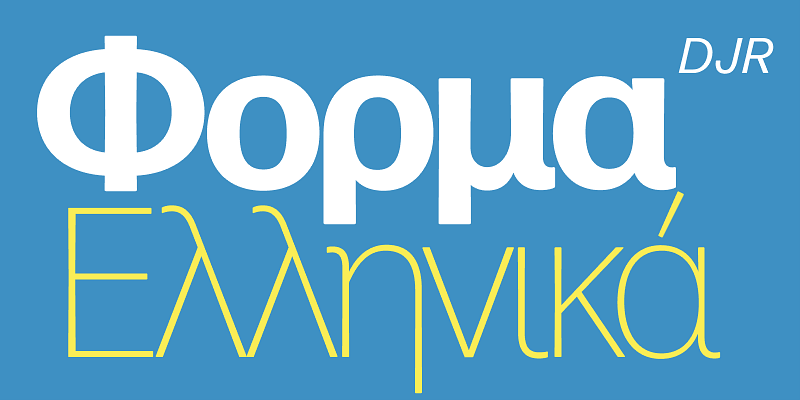
Forma DJR Greek Font Free Download is a modern sans-serif typeface that brings a clean, structured look to multilingual design. Crafted with the same elegance and clarity as its Latin counterpart, this Greek-supported version is perfect for projects requiring sophistication, balance, and global reach.
Ideal for editorial layouts, branding materials, web interfaces, and signage, Forma DJR Greek offers a timeless design rooted in geometric precision. The font’s Greek character set is meticulously harmonized with the Latin alphabet, providing a consistent visual rhythm that enhances readability and professional appearance across all text.
Its minimalist yet versatile nature allows it to shine in both headlines and body text, whether you're working on a bilingual website, a sleek corporate presentation, or a high-end magazine spread. With Forma DJR Greek, you get a font that respects the nuances of Greek typography while maintaining a distinctly modern tone.
Make your multilingual design projects stand out with the refined structure and global adaptability of Forma DJR Greek—where classic form meets contemporary function.